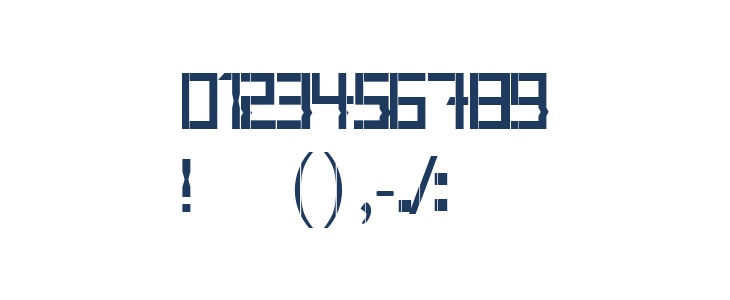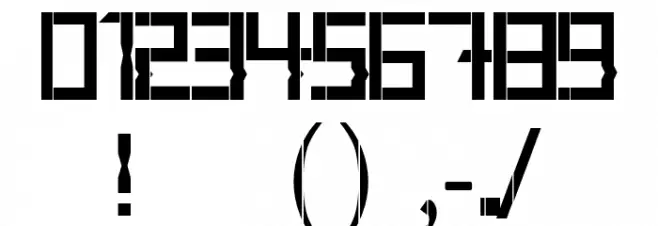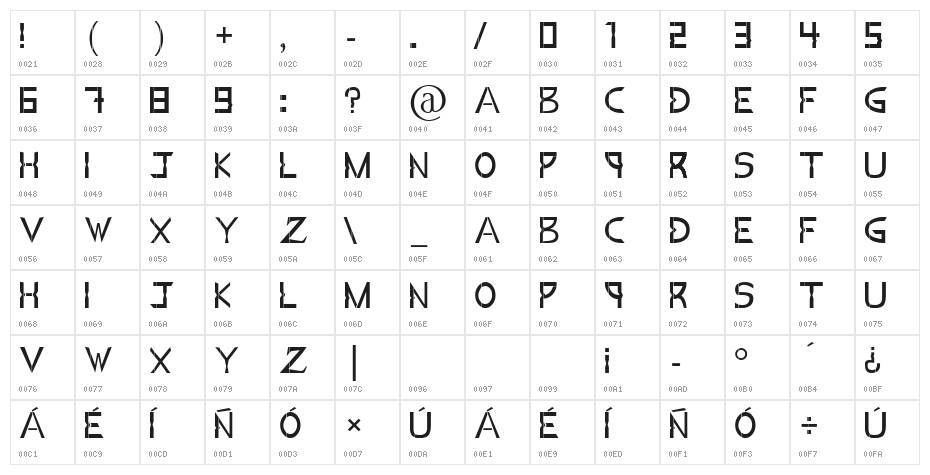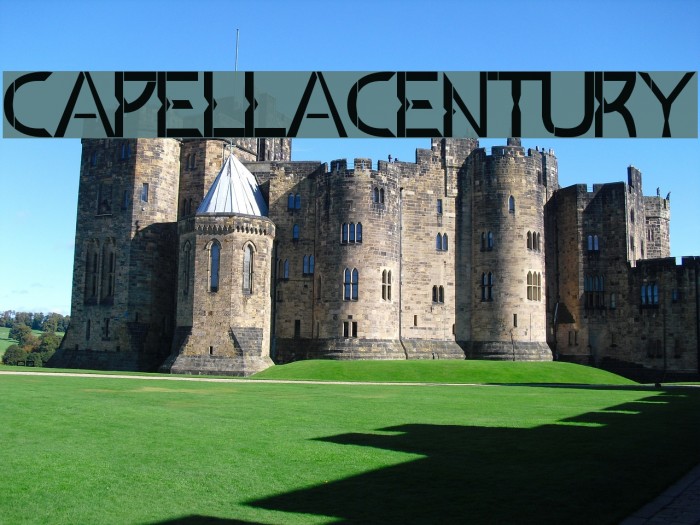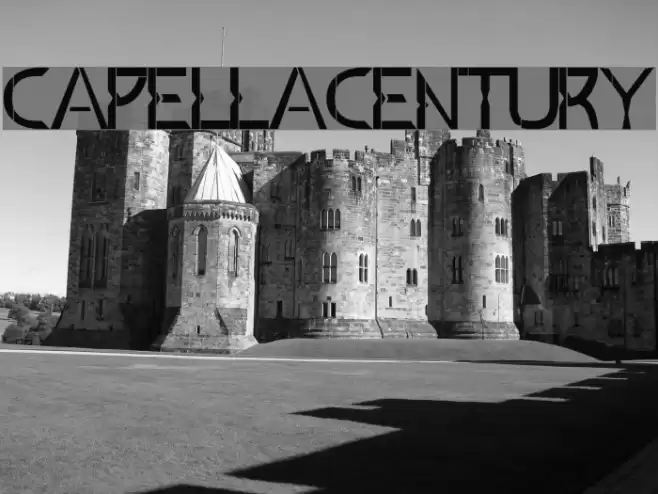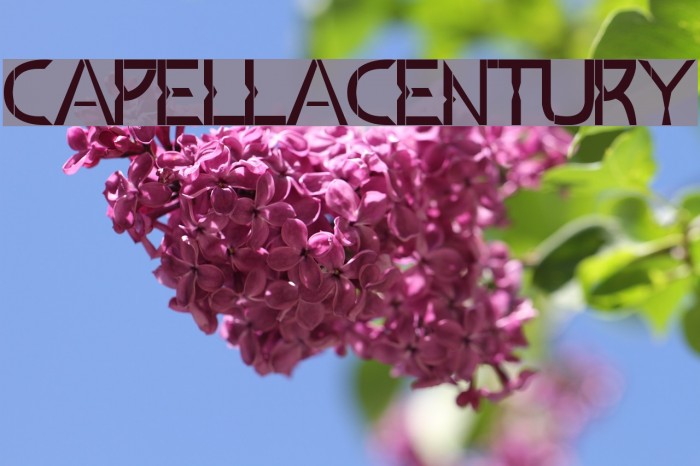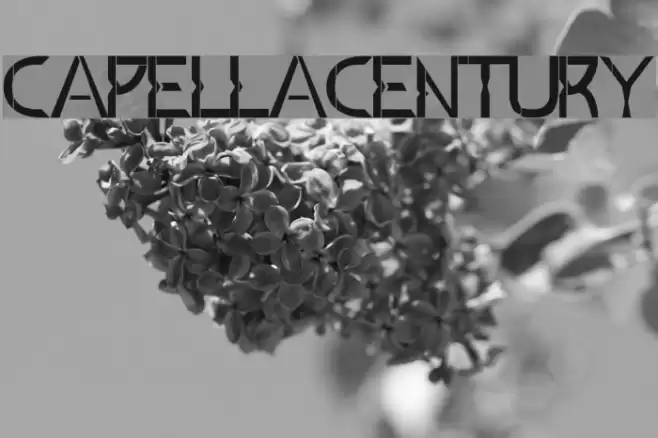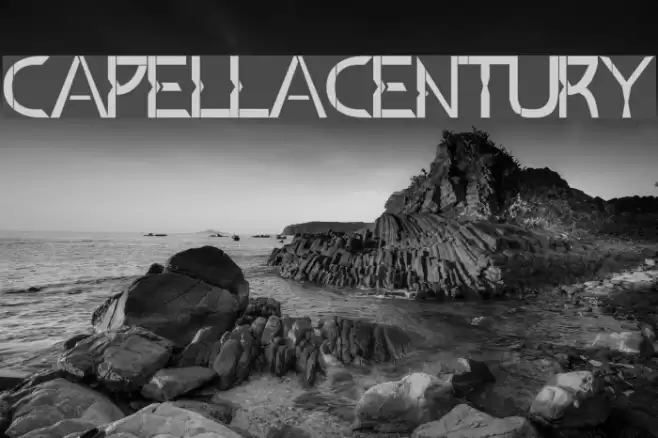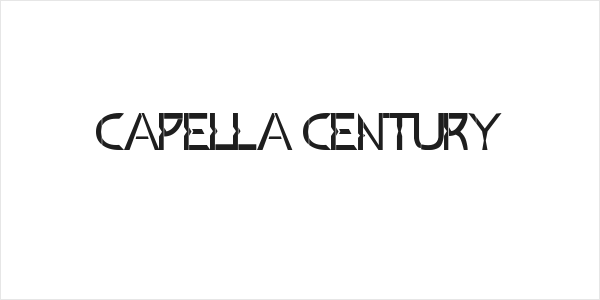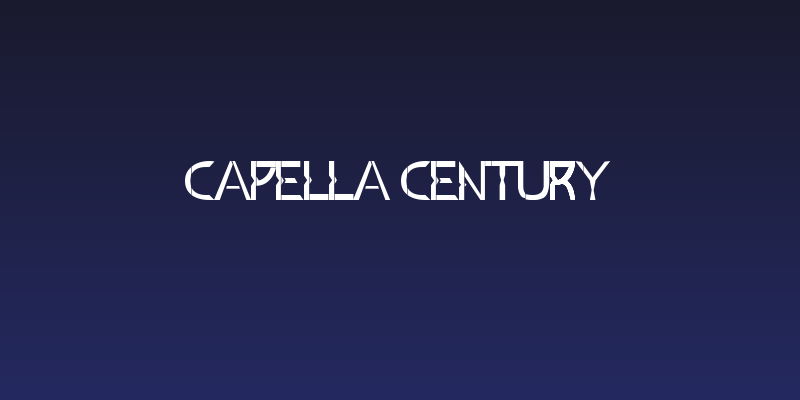
Capella Century Font
Capella Century Description
This font features a highly geometric and futuristic design, characterized by its bold, angular shapes and distinct cut-out sections within each character. The uppercase and lowercase letters share a consistent style, with sharp edges and a unique, fragmented appearance that gives the font a digital or sci-fi aesthetic. The numbers and special characters maintain this theme, ensuring a cohesive look across all glyphs. The font's design is striking and unconventional, making it ideal for projects that require a modern and edgy feel.
| Overall Style | Futuristic, Modern |
| Proposed Projects | Ideal for sci-fi movie posters, tech company logos, video game titles, and modern digital art. |